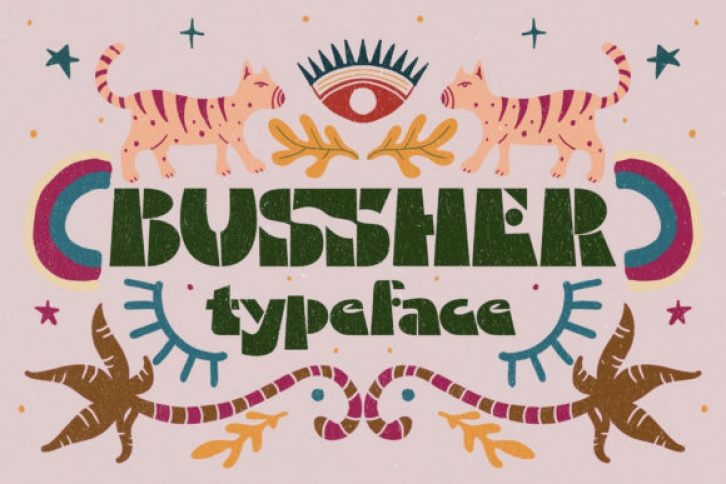
Bussher is an incredibly cool and bold display font. This thick lettered, retro styled font will elevate your creations. Add it confidently and you will love the impact it has on your designs. Bussher is PUA encoded which means you can access all of the glyphs and swashes with ease!